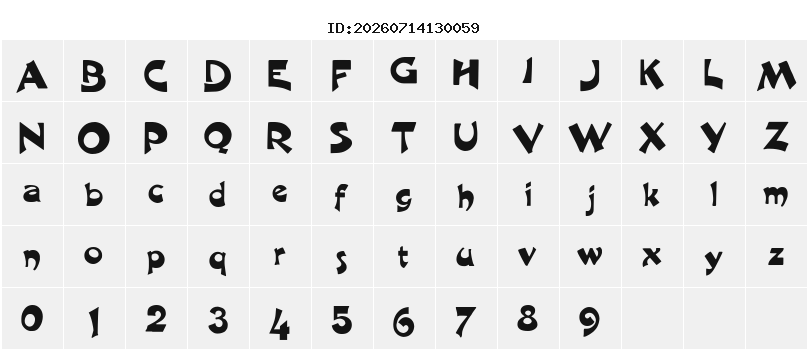
Harquil Preview
About Harquil.ttf
Harquil.ttf is a modern, elegant sans-serif font designed for ultimate readability and visual harmony. Perfect for branding, headlines, web design, and print materials.